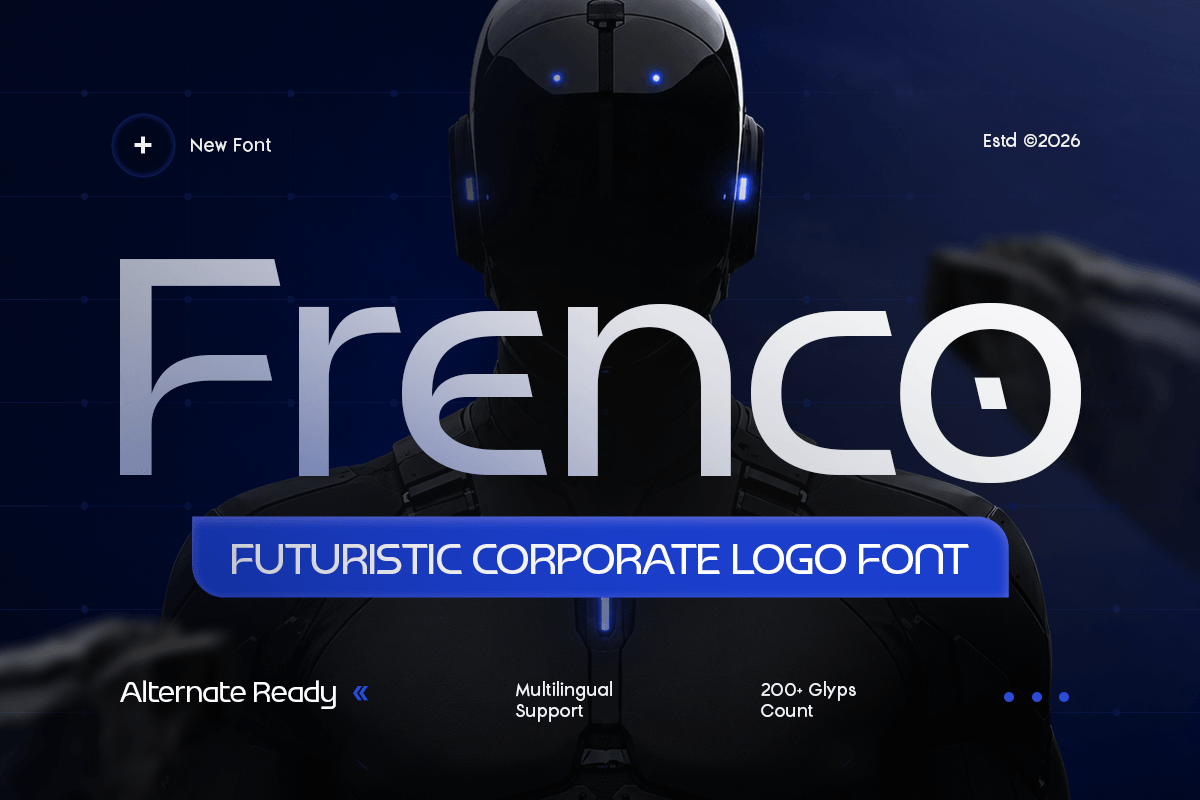
Frenco
-Futuristic Corporate Logo FontFrenco - Futuristic Corporate Logo Font
Frenco is a Unique Futuristic Corporate Logo Font designed for innovative brands, technology companies, and modern visual identities. Inspired by futuristic aesthetics, digital environments, and contemporary corporate branding, Frenco combines distinctive letterforms with a bold and forward-thinking character.
With its unique structure, clean geometry, and modern display style, Frenco is perfect for creating impactful logos, technology branding, startup identities, gaming visuals, digital products, and promotional materials. Its futuristic appearance helps brands communicate innovation, confidence, and a modern vision.
Key Features:
Uppercase & lowercase characters
Numbers & symbols included
Unique futuristic display letterforms
Modern geometric structure
Professional kerning
Multilingual support
With its strong personality and futuristic design language, Frenco is created for designers who want a corporate font with a unique edge, modern presence, and memorable branding potential.
Perfect For:
Logo design
Technology branding
Corporate identity systems
Startup and digital branding
Gaming and esports projects
Website and app interfaces
Advertising materials
Social media graphics
Ideal for designers seeking a futuristic corporate font with a unique personality, innovative appearance, and professional branding appeal.